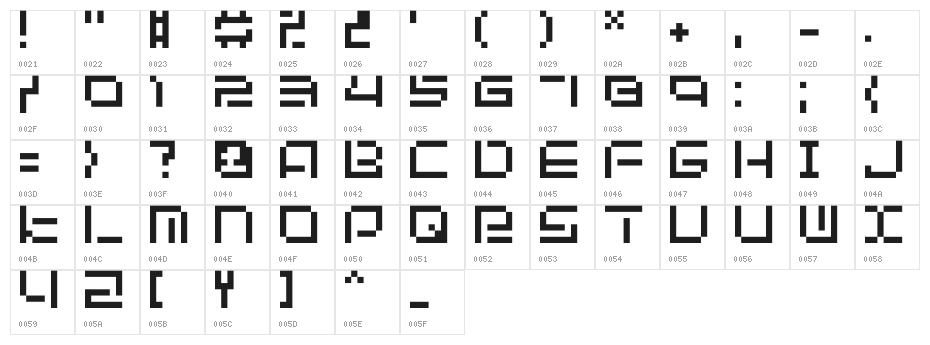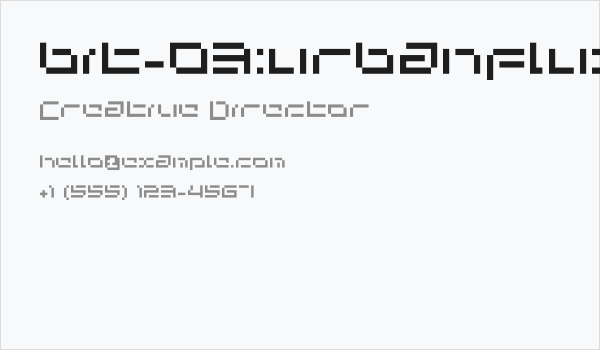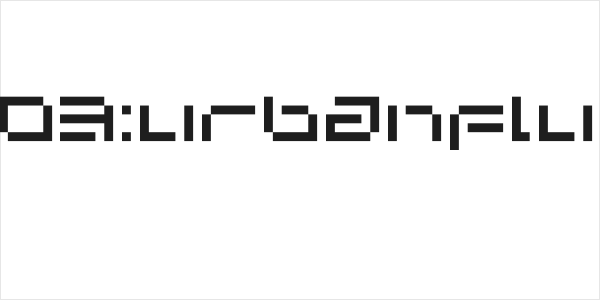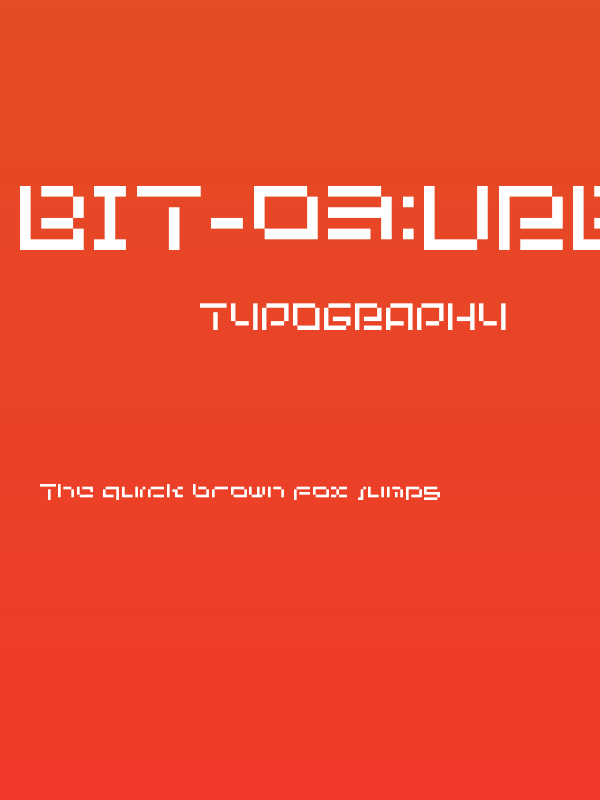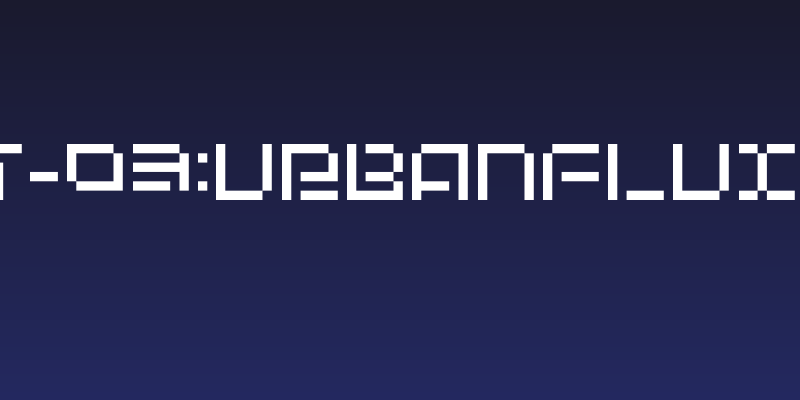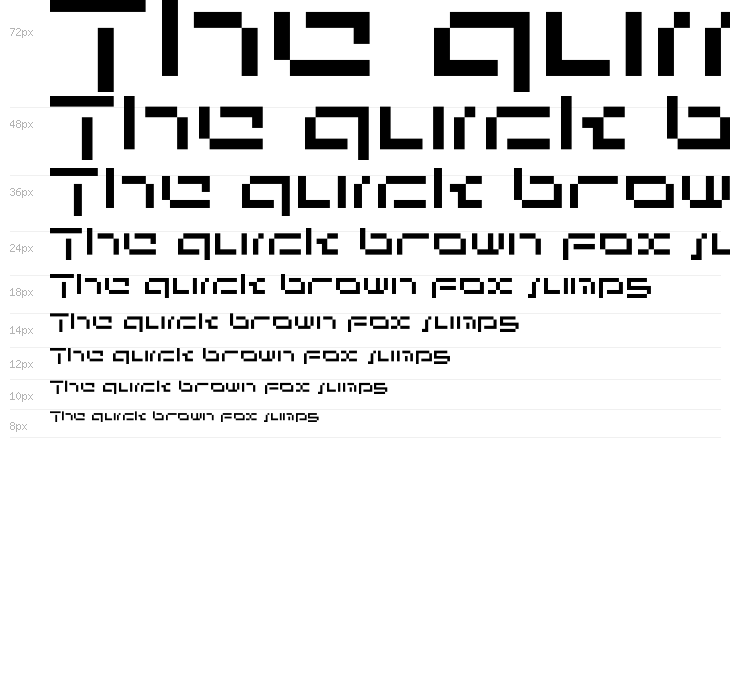
bit-03:urbanfluxer Font
bit-03:urbanfluxer Description
This font features a bold, geometric design with a distinctly digital and futuristic aesthetic. Each character is constructed with a pixelated, block-like structure, giving it a modern and tech-inspired appearance. The uniformity in stroke width across all characters contributes to a cohesive and structured look. The uppercase and lowercase letters maintain a consistent style, while the numerals and special characters align seamlessly with the overall design. This font is ideal for projects that require a digital or retro-futuristic vibe, making it suitable for tech branding, video game interfaces, and digital art.